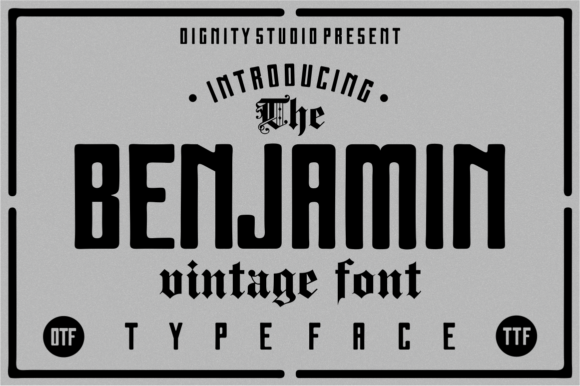
I still remember the frustration of working on a project, hours spent perfecting every detail, only to hit a roadblock: finding the right font. My client wanted something bold, modern, and eye-catching, but everything I tried seemed to fall flat. That’s when I stumbled upon **Benjamin Font**, a cool, bold, and robotic styled display font that instantly caught my attention.
Benjamin Font: The Perfect Solution?
Benjamin Font is ideal for writing web designs, business cards, or pretty much anything else that requires a unique touch. Its robotic style gives it a futuristic feel that’s perfect for projects that need a bit of edge. Here are some things I love about Benjamin Font:
• ✨ Unique and eye-catching: Benjamin Font stands out from more traditional fonts, making it perfect for projects that need a bit of personality.
• ✅ Highly versatile: This font works well in a variety of contexts, from digital designs to print materials.
• 💻 Great for web design: The clean lines and modern style of Benjamin Font make it perfect for web designs, whether you’re creating a website or a landing page.
While Benjamin Font is an excellent choice, it’s not without its quirks. Here are a few things to keep in mind:
• 🤔 Legibility at small sizes: While Benjamin Font is stunning at larger sizes, it can be a bit tricky to read at smaller sizes. Make sure to test it out at different sizes to ensure it works for your project.
• ⚠️ Limited use in body text: Due to its bold and futuristic style, Benjamin Font is best used as a display font or for headings. It may not be the best choice for body text.
Benjamin Font was designed by a team of talented typographers who wanted to create a font that was both modern and unique. The design process involved experimenting with different shapes and styles to create a font that was both bold and elegant. The result is a font that’s perfect for designers, crafters, and creative hobbyists who want to add a bit of edge to their projects.
What is Benjamin Font? Benjamin Font is a cool, bold, and robotic styled display font that’s perfect for web designs, business cards, and other projects that require a unique touch.